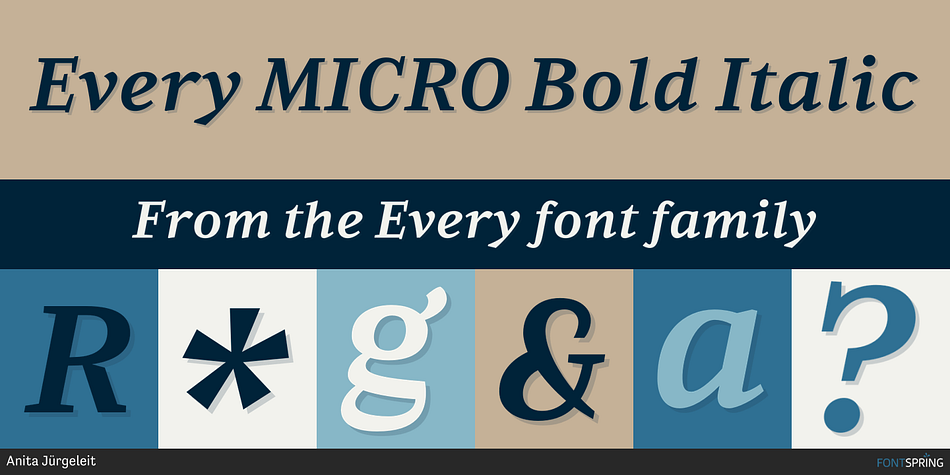
Every MICRO Bold Italic
Designed by Anita Jürgeleit, Every is a serif font family. This typeface has twenty-four styles and was published by TypeThis!Studio.
EVERY is designed to be the most valuable typography equipment in your repertoire!
It immediately reveals its true greatness and grandeur. Its sublime generosity, expressive aesthetics and unique presence underscore its image befitting its status.
Rich in visions, a wide range of features have been created to master all your typographic challenges par excellence: True italics, small caps, old-style figures, discretionary ligatures and arrows are just some of the many possibilities that EVERY offers.
28 Styles in three optical sizes, each with over 900 characters, gives you the opportunity to create fascinating, high-quality design with the scent of iconic elegance.
Be exceptional – EVERY day.
+++ Features +++
24 Styles +++ 3 Optical Weights (Head, Text & Micro) +++ 950 Characters +++ True Italics +++ Small Caps
Old Style Figures +++ Lining & Tabular Figures +++ Sub- & Superscript +++ Circled Numbers +++ Predefined Fractions +++ Discretionary Ligatures +++ Extended Currency Set (proportional & tabular currencies) +++ Full Latin Language Support incl. Vietnamese +++ Various Arrows